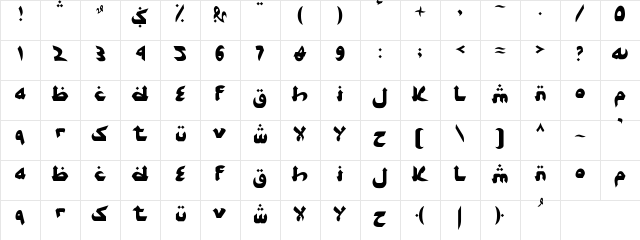
alghorie syawal Regular
Design Context for alghorie syawal
alghorie syawal is a composed and adaptable typeface that performs quietly and consistently across a wide range of design contexts.